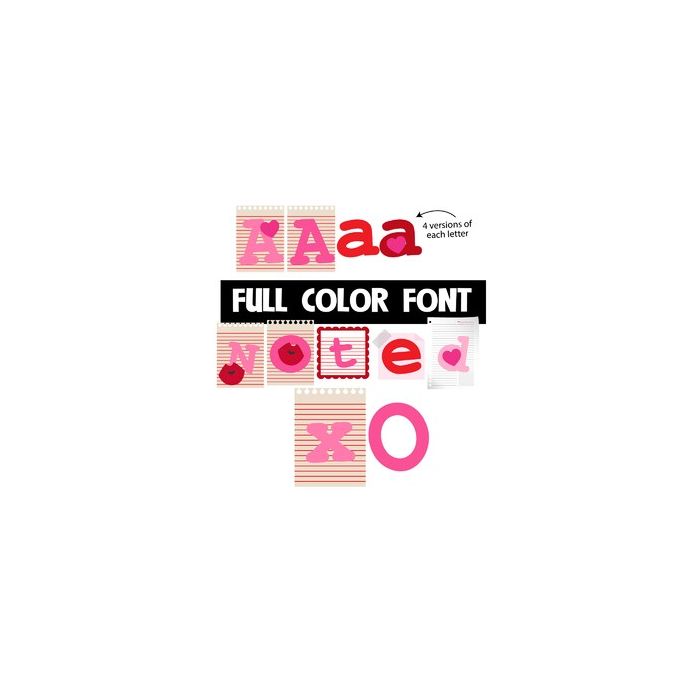
This full-color font features a pink/red color palette with a mix of lettering, hearts, and kisses. There is an alt upper and lowercase with additional colors that you can access through Silhouette's glyph map.